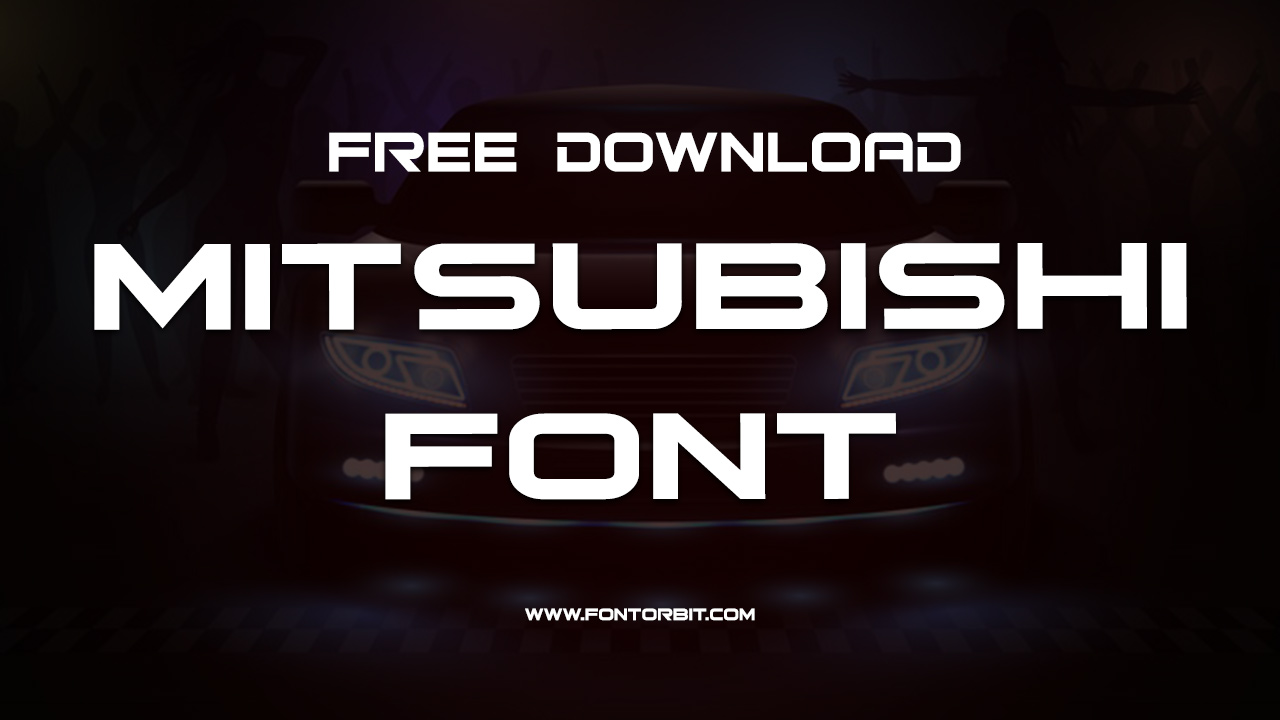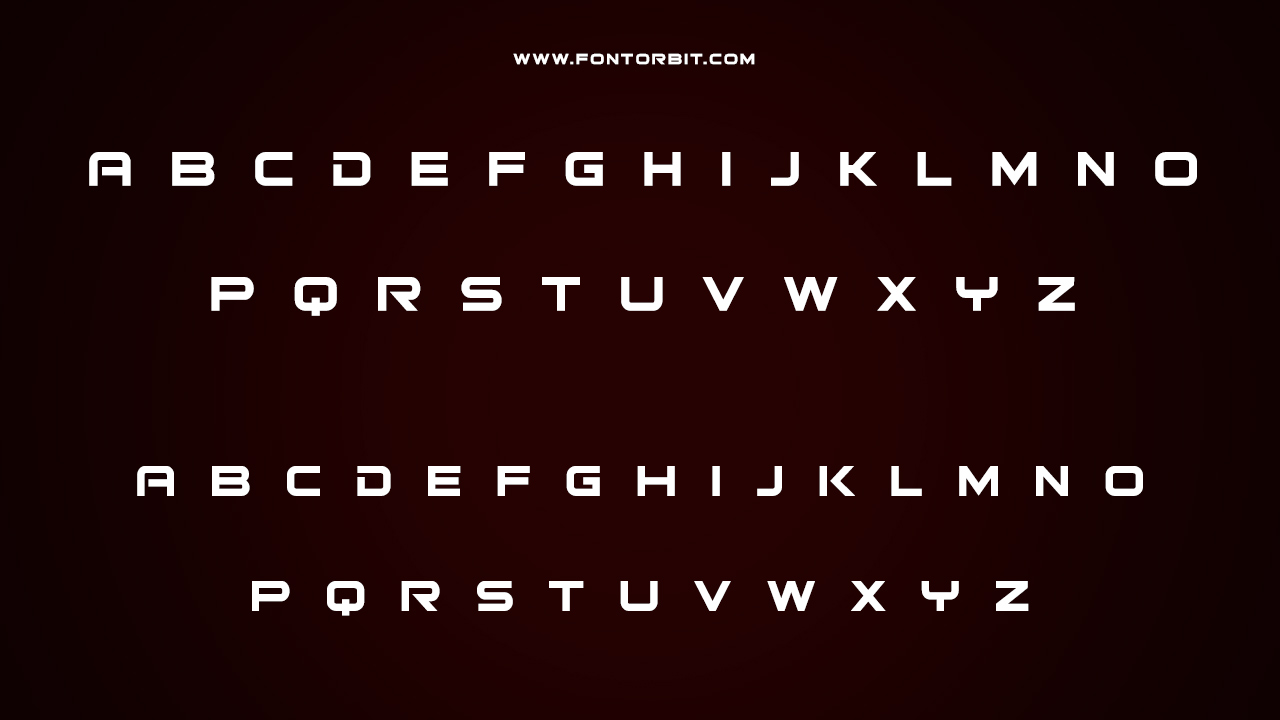
Therefore, their logos’ Mitsubishi Font, also known as Bitsumishi ( Designer Herb Lubalin), is an informal sans serif typeface created by No Images Fonts and is PUA encoded. It is a refined and elegant typeface that exudes sophistication and modernity.
The Mitsubishi Font Family Includes
Mitsubishi Font’s single, well-crafted style embodies its sleek and modern design. This font stands out with its clean lines and balanced proportions, making it perfect for formal and casual applications. Available for personal use, it can be installed on various platforms including PC, Mac, Linux, iOS, and Android, offering flexibility for diverse design needs.
a. Bitsumishi
Mitsubishi Font’s elegant and versatile design makes it suitable for a range of projects that require a sophisticated touch. It’s particularly effective for:
- greeting cards,
- t-shirts,
- logos,
- titles and headlines
Mitsubishi Font Found In Use
Designers effectively use the Mitsubishi Font in various professional and personal contexts. For example, they frequently incorporate it into high-end business presentations and sophisticated invitations, where its clean and modern style enhances the overall design. Its classic look provides a touch of elegance and professionalism, making it a popular choice among designers aiming for a refined aesthetic.
1.What Are The Limitations Of The Mitsubishi Font In Digital Design?
The limitations of the Mitsubishi Font may include its lack of variety in weights and styles, which could restrict its use in certain design scenarios requiring more diverse typographic options.
2.What Makes Mitsubishi Font Unique Compared To Other Fonts?
Mitsubishi Font’s uniqueness lies in its clean, modern lines and balanced proportions, providing a sophisticated and professional appearance that stands out in both formal and casual settings.
3.What Are The Popular Uses Of Mitsubishi Font?
Mitsubishi Font is popular for high-end business materials, elegant invitations, professional documents, and modern branding, where its clean design adds a touch of sophistication.
4.What Are The Design Principles Behind Mitsubishi Font?
The design principles behind Mitsubishi Font focus on achieving a sleek and modern appearance through clean lines and balanced proportions, making it versatile for a wide range of applications.